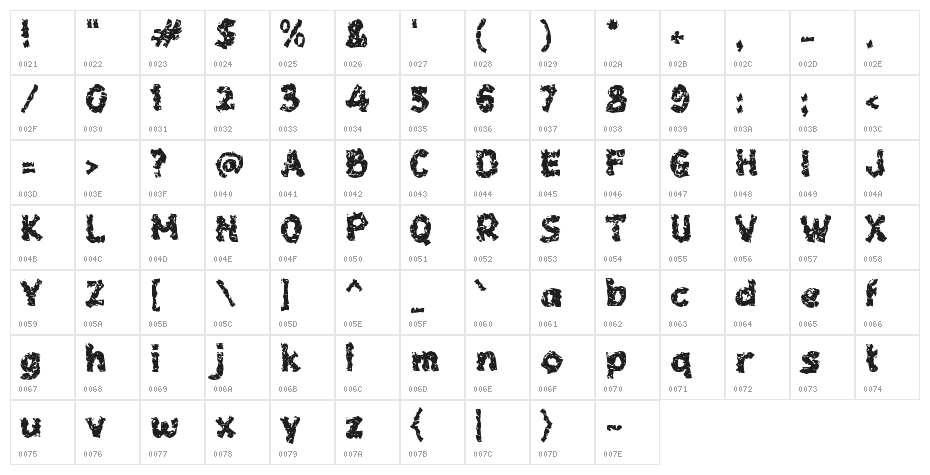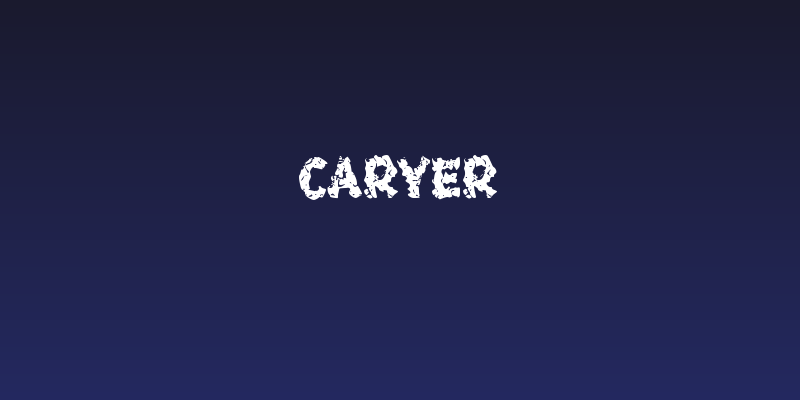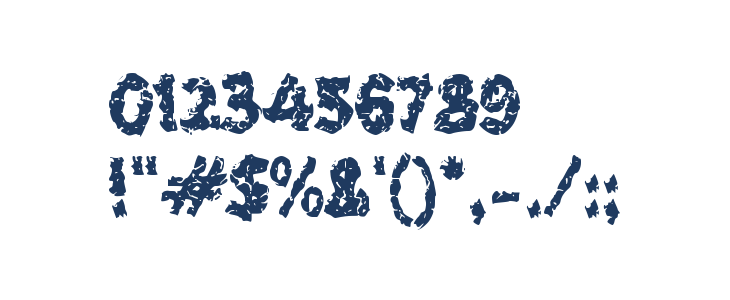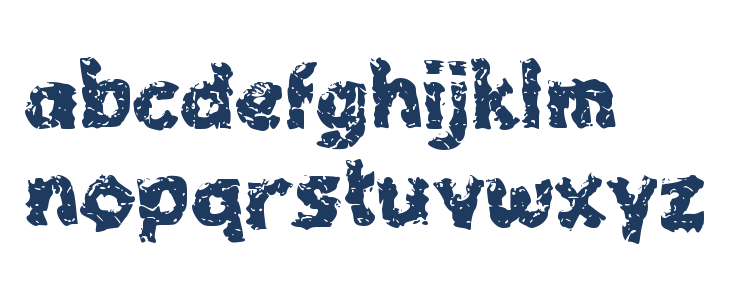
Caryer Font
Caryer Description
This font features a highly decorative and distressed style, characterized by irregular, jagged edges and a textured appearance that mimics a worn or eroded surface. The letters are bold and substantial, with a playful yet rugged aesthetic that stands out prominently. The uppercase and lowercase letters maintain a consistent design theme, while the numbers and special characters complement the overall look with similar detailing. This font's unique style makes it ideal for projects that require a strong visual impact.
| Proposed Projects | Ideal for poster designs, album covers, branding for edgy or alternative products, and any project needing a bold, eye-catching typeface. |